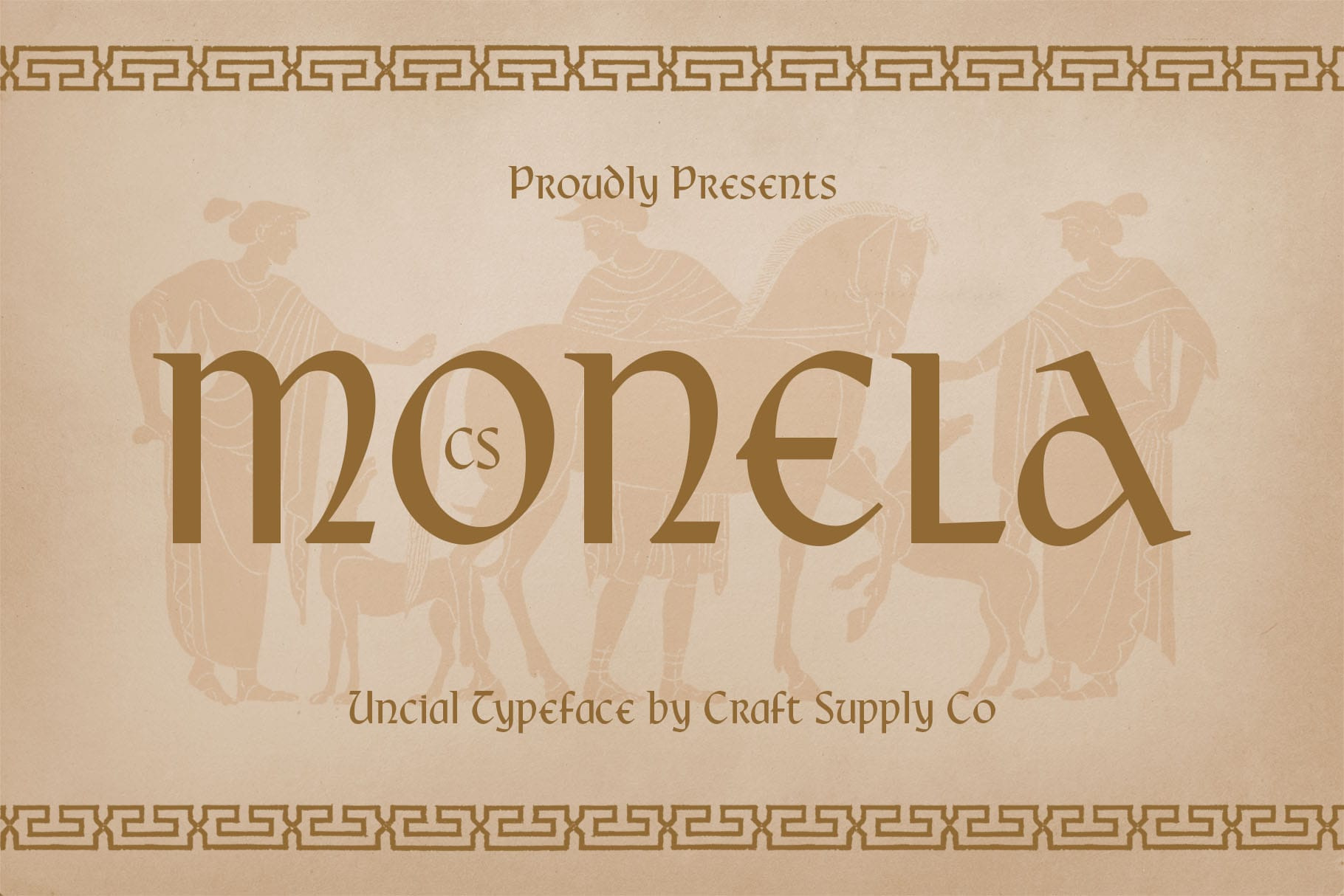
CS Monela – Uncial Font
CS Monela – Uncial Font: A Timeless Script Rooted in History
A Classic Uncial Typeface with a Flowing, Organic Structure CS Monela is a display font in the uncial style, inspired by ancient script traditions that evolved from Roman and medieval calligraphy. It features rounded, flowing letterforms with minimal contrast between uppercase and lowercase characters, capturing the essence of historic manuscript writing.
A Blend of Elegance and Medieval Aesthetics The font’s smooth curves and balanced proportions create an organic and rhythmic flow, evoking the feel of handwritten script from illuminated manuscripts. With its distinct calligraphic influence, CS Monela adds a sense of classical sophistication, making it perfect for fantasy worlds, medieval themes, or mythological storytelling.
Ideal for Fantasy, Historical, and Decorative Design CS Monela is well-suited for book covers, branding, posters, or titles that require a vintage, legendary, or mystical aesthetic. It enhances historical narratives, fantasy-themed projects, and elegant design compositions, bringing a refined yet artistic touch.
A Typeface That Bridges Past and Present While deeply rooted in tradition, CS Monela can seamlessly blend into modern interpretations of historical design. Its timeless and decorative appearance makes it a versatile choice for creative projects, offering a unique mix of ancient inspiration and contemporary artistry.